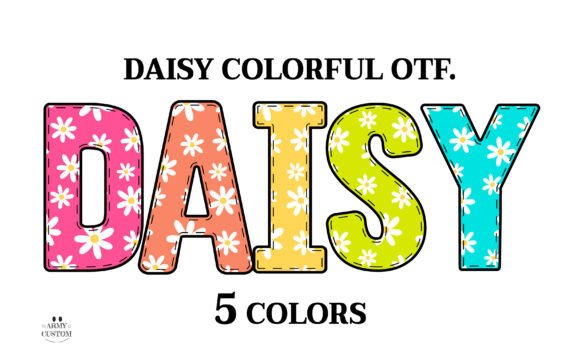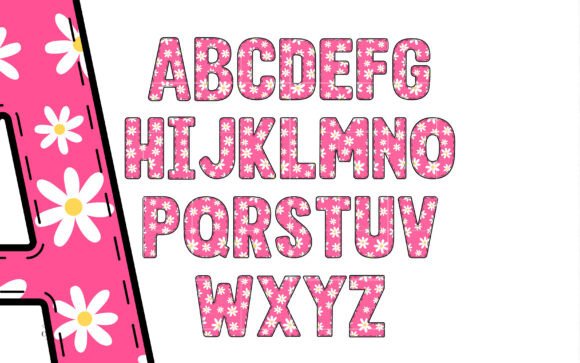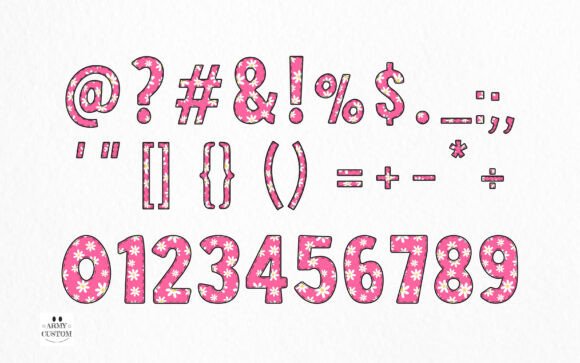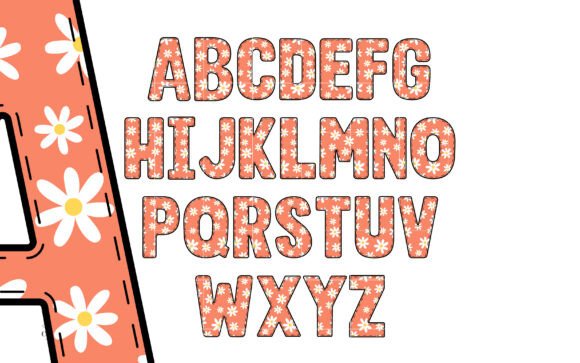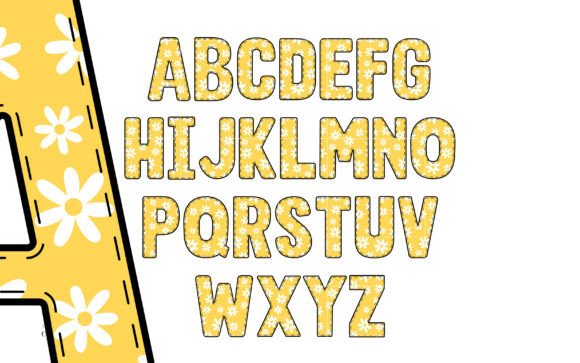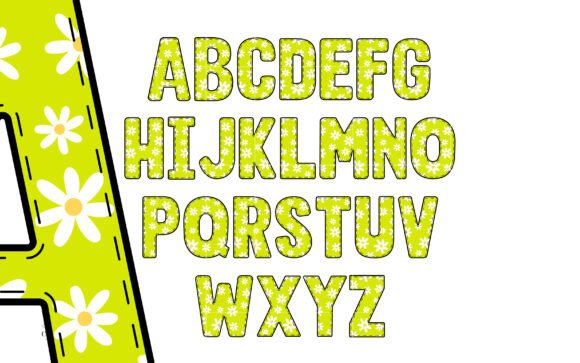
Bringing Joy to Design: Introducing Daisycolorful Orange Font
Have you ever stared at a blank design canvas, waiting for inspiration to strike? It’s that moment when you crave a font that screams ‘fun’ and ‘playful’. For designers looking to add a splash of color and personality to their projects, the Daisycolorful Orange Font is here to save the day. This vibrant and cheerful typeface is designed to bring a smile to the viewer’s face, making it perfect for children’s projects, greeting cards, and event invitations.
What sets the Daisycolorful Orange Font apart is its unique blend of bold letterforms and charming daisy patterns. With five colorful variations to choose from, designers can add a lively and energetic vibe to their layouts. Whether you’re creating digital designs, packaging, or stickers, this font is sure to make a lasting impression. Its combination of solid construction and floral artistry makes it not only decorative but also memorable, giving any design a fresh and happy personality.
Daisycolorful Orange Font Key Features
- Font Family: Daisycolorful Orange Font is a unique, hand-drawn font with a vibrant and playful personality.
- Unique Characteristics: Features a distinctive, hand-painted style with intricate details and subtle texture, making it perfect for adding a touch of whimsy to designs.
Daisycolorful Orange Font Review
I recently had the chance to work with the Daisycolorful Orange Font, and I must say it’s an interesting choice for designers.
The Daisycolorful Orange Font has a unique personality, perfect for branding projects that require a bold and playful touch.
The font’s varying line widths and weights add visual interest to text, making it great for titles and headings.
The font is highly customizable, allowing designers to fine-tune the spacing and color to fit their specific design needs.
The font’s readability can suffer at smaller sizes, making it less suitable for body text.
The font’s color palette is quite limited, which may restrict its use in certain design contexts.
The font may not be the best choice for formal or professional projects, as it’s quite whimsical and attention-grabbing.
While the Daisycolorful Orange Font has its limitations, it’s a great choice for designers who want to add some personality and whimsy to their projects. With careful use and customization, it can be a valuable addition to any design toolkit.
Getting the Most Out of the Daisycolorful Orange Font
For the best results, use the Daisycolorful Orange Font in conjunction with bright and bold colors. This font is ideal for creating eye-catching headlines, titles, and graphics.
The Daisycolorful Orange Font is commonly used in:
- Children’s products and educational materials
- Summer-themed designs and events
Q: Does the Daisycolorful Orange Font include any special features or ligatures?